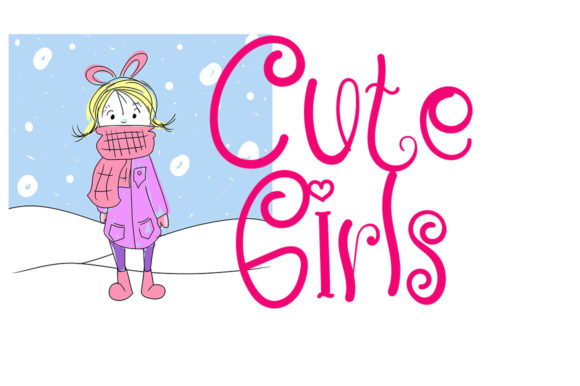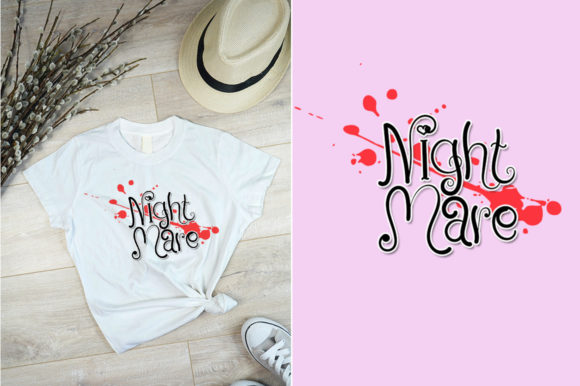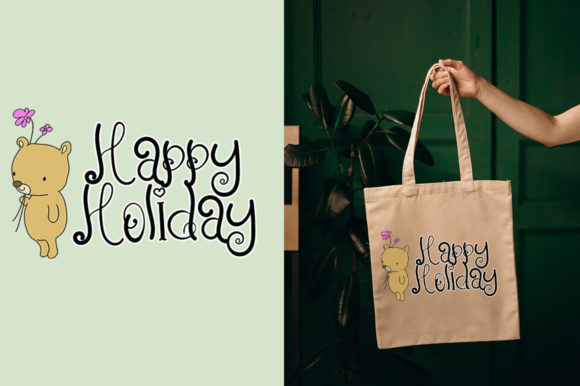
Unlocking Joyful Designs: The Magic of Kids Rainy Font
Do you remember the excitement of creating something with crayons and markers on a rainy day as a child? The world outside might be grey, but your imagination knows no bounds, and the possibilities are endless. As a designer, you know that capturing that sense of wonder and creativity is key to making your projects truly special.
That’s where the Kids Rainy Font comes in – a beautiful and sweet font that’s perfect for adding a touch of joy to your designs. With its fresh, clean, and elegant style, this font is ideal for a wide range of projects, from school assignments to kids’ books, and from t-shirts to mugs.
- Unique Characteristics: The Kids Rainy Font features a playful, handwritten style with rounded edges and soft lines, making it perfect for children’s books, educational materials, and other kid-friendly content.
Designer Review: Kids Rainy Font
Overall, I think the Kids Rainy Font is a cute and playful choice for children’s products, websites, or anything that needs a whimsical touch. Here are some things that stand out:
- ✨ The font is highly customizable, which is great for tailoring it to your specific project needs. You can adjust the size, color, and even add some fun effects to make it more engaging.
- ✨ The font is easy to read, even for young children, which is essential for any text-based project. The letters are clear and well-defined, making it perfect for kids’ educational materials or children’s book covers.
- ✨ The font has a nice, rounded feel to it, which makes it perfect for a children’s theme. It’s also highly versatile, so you can use it for a wide range of projects, from greeting cards to web design.
- ⚠️ The font may be a bit too childish for some projects, so you may want to use it judiciously to avoid coming across as too juvenile.
- ⚠️ The font is a bit limited in terms of its character set, so you may need to supplement it with other fonts if you’re working on a project that requires a wide range of characters.
Overall, I think the Kids Rainy Font is a great choice for projects that need a playful, whimsical touch. While it may have some limitations, its customizability and versatility make it a great addition to any designer’s toolkit.
Tips for Getting the Most Out of the “Kids Rainy Font”
To get the most out of the “Kids Rainy Font”, use it for:
- Children’s book covers and illustrations.
- Playful advertisements and marketing materials.
- DIY crafts and party invitations.
Remember to pair the font with other playful and whimsical elements to create a cohesive design.